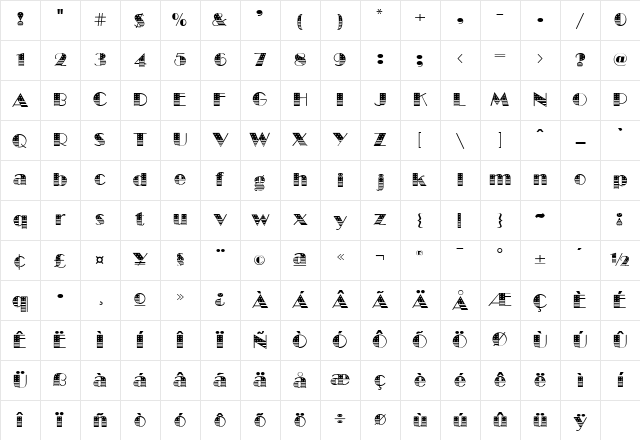
SMCWashington Regular
Design Context for SMCWashington
SMCWashington is a composed and adaptable typeface that performs quietly and consistently across a wide range of design contexts.